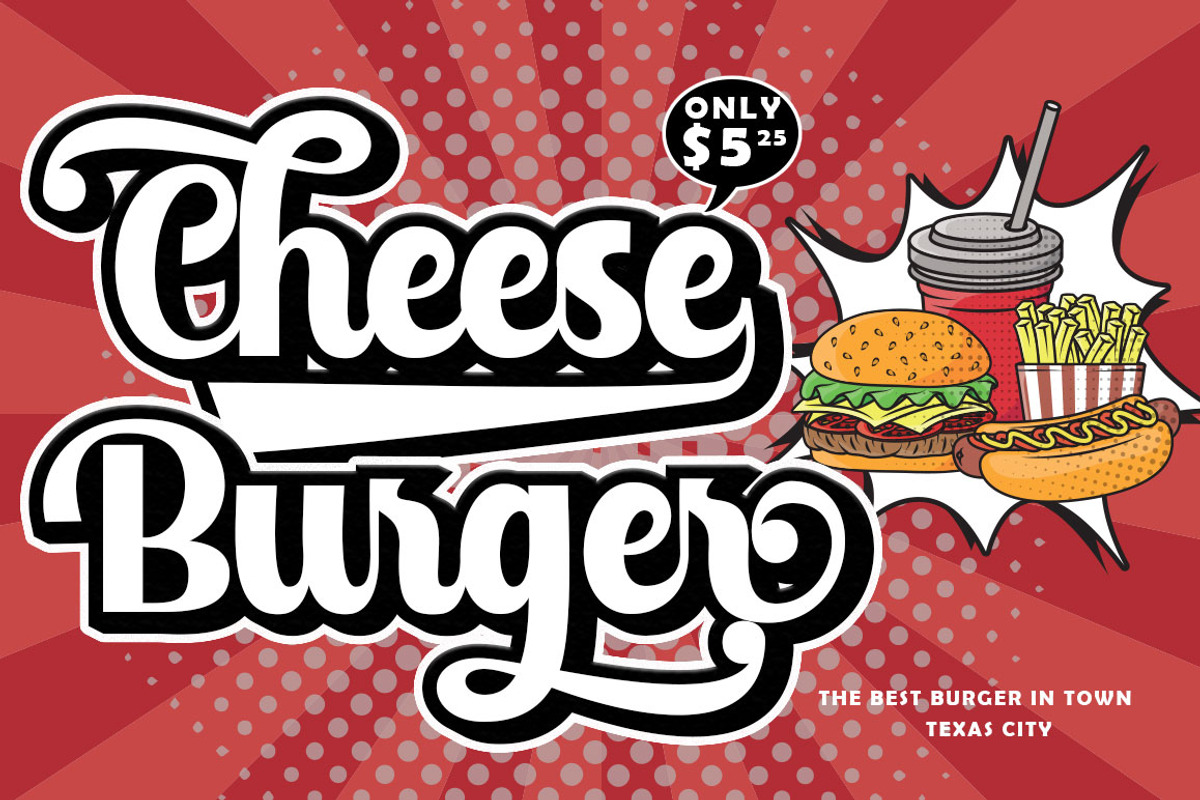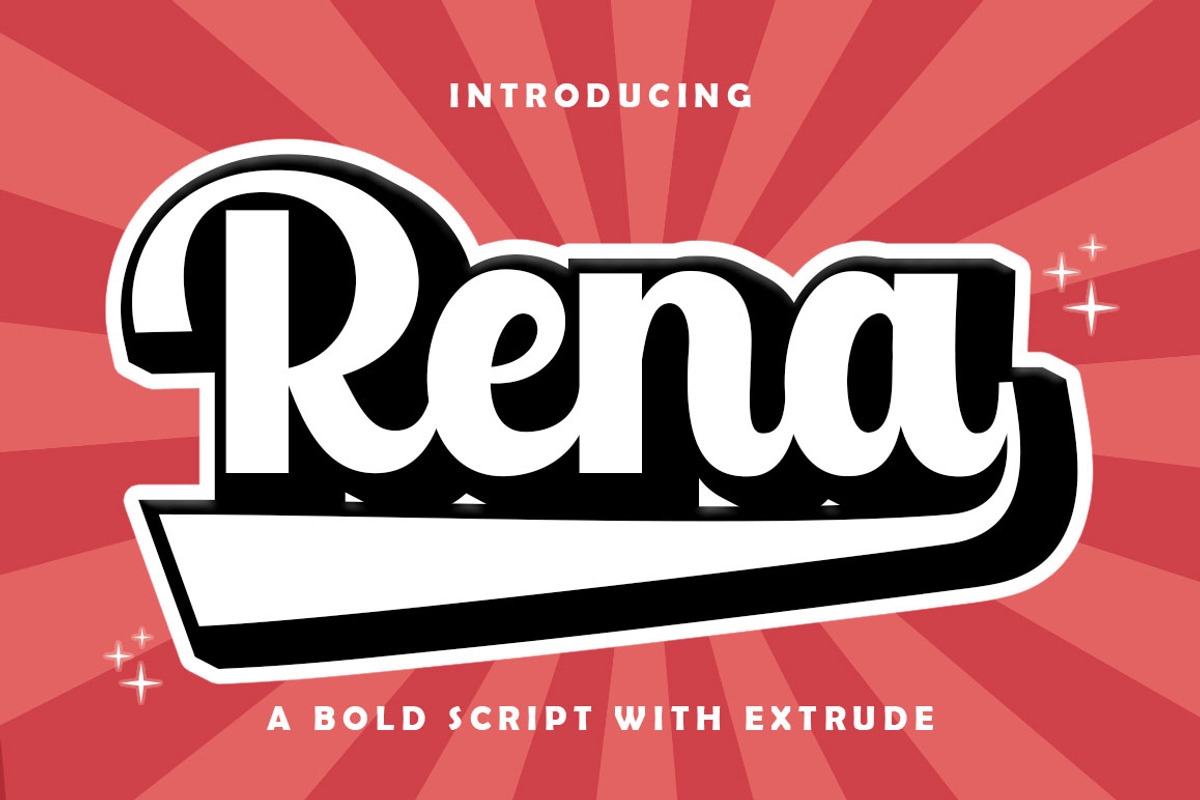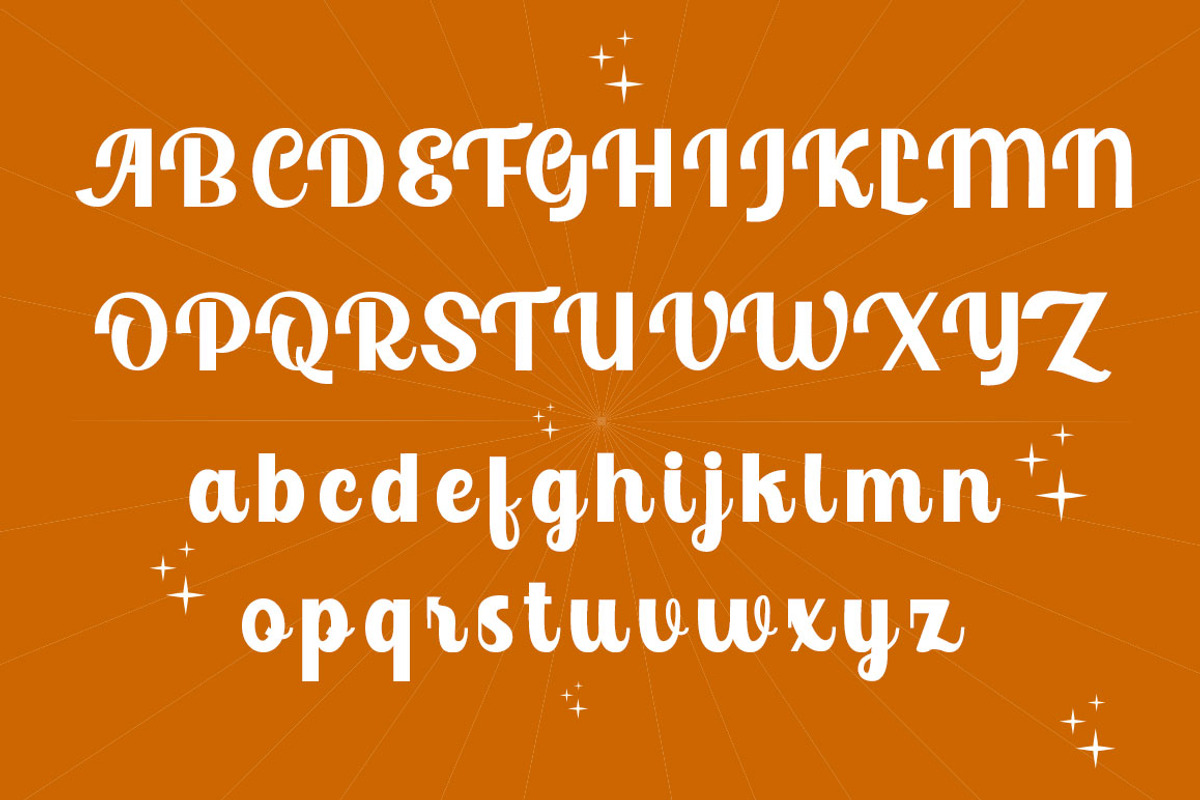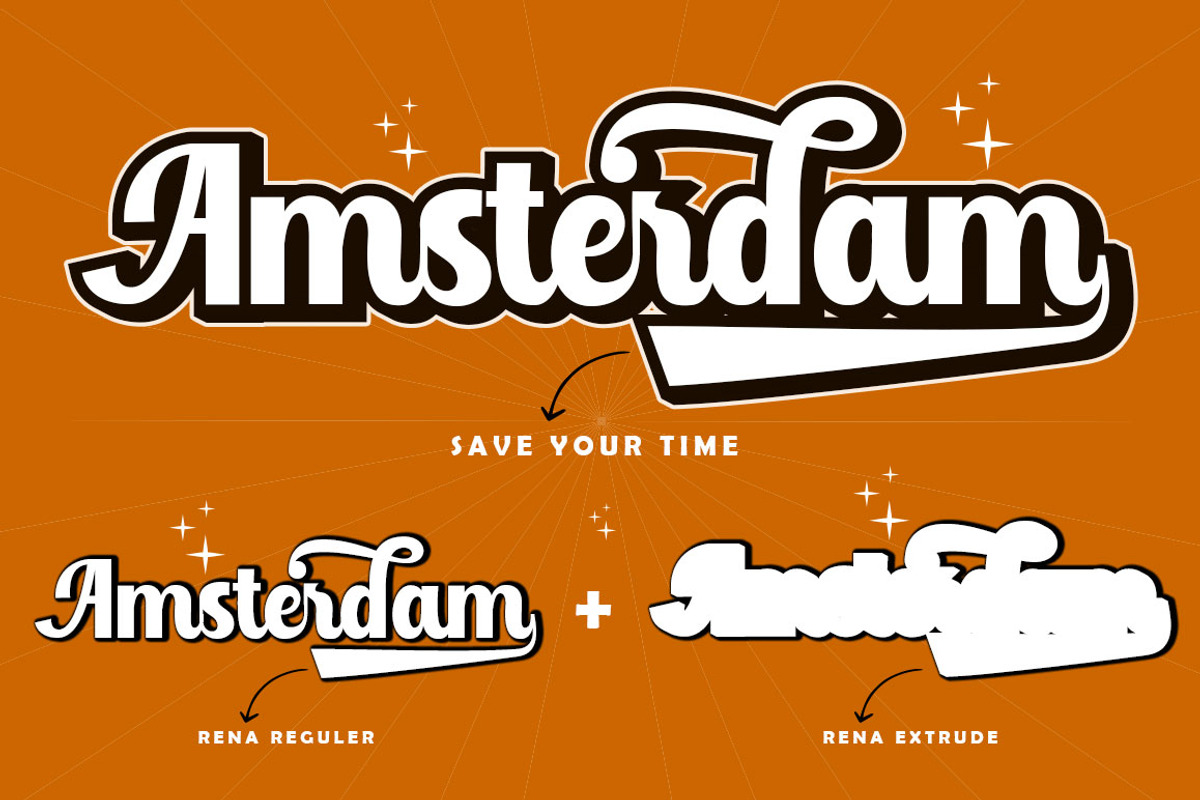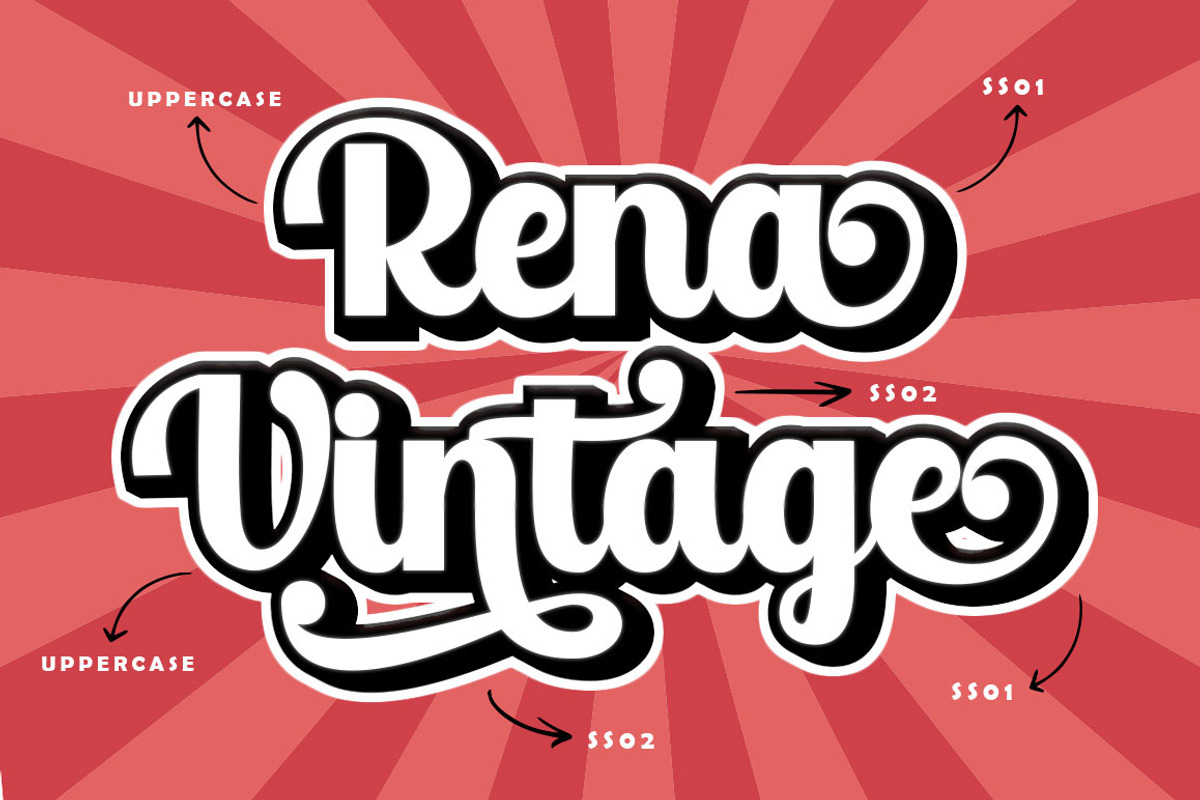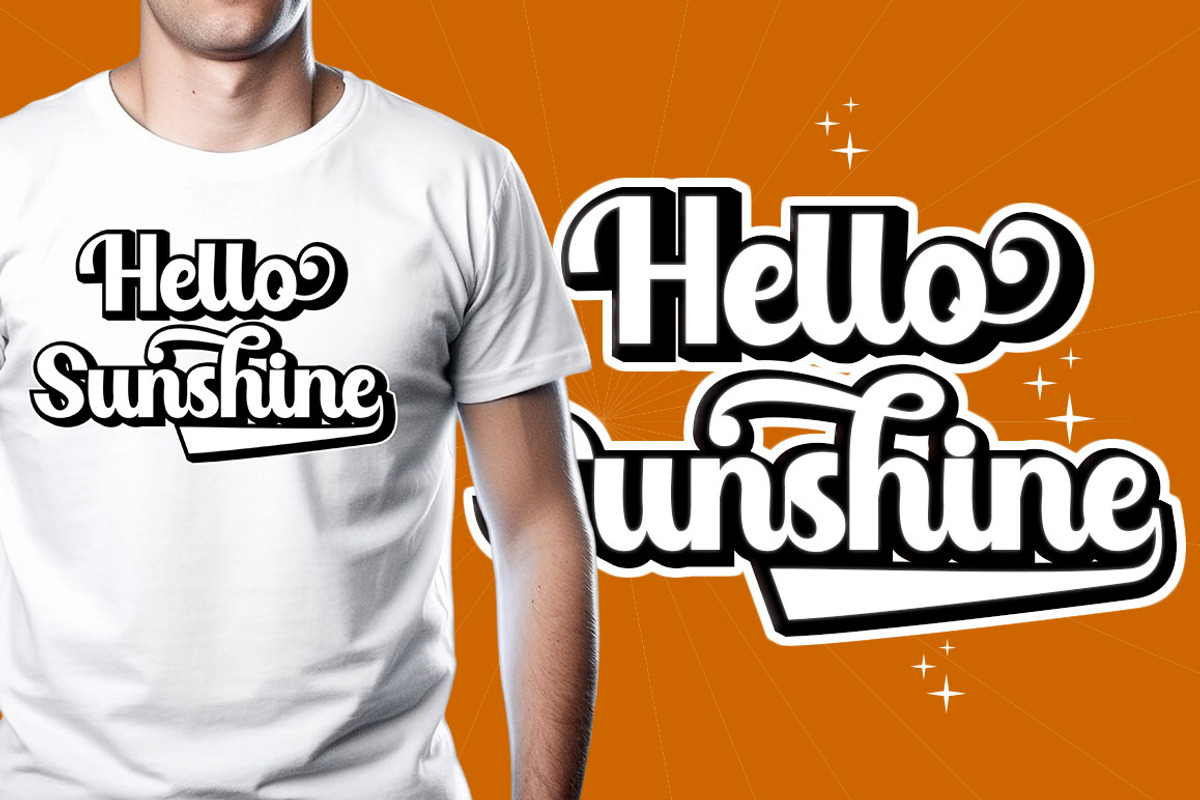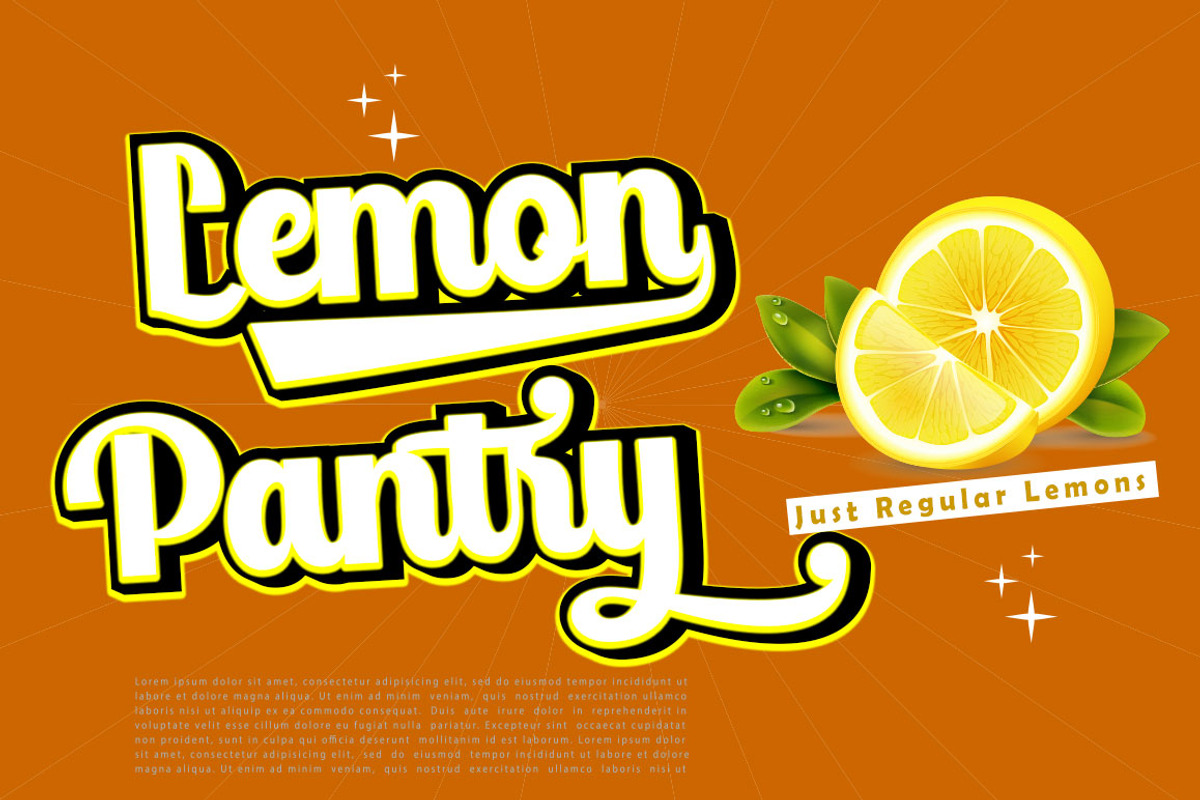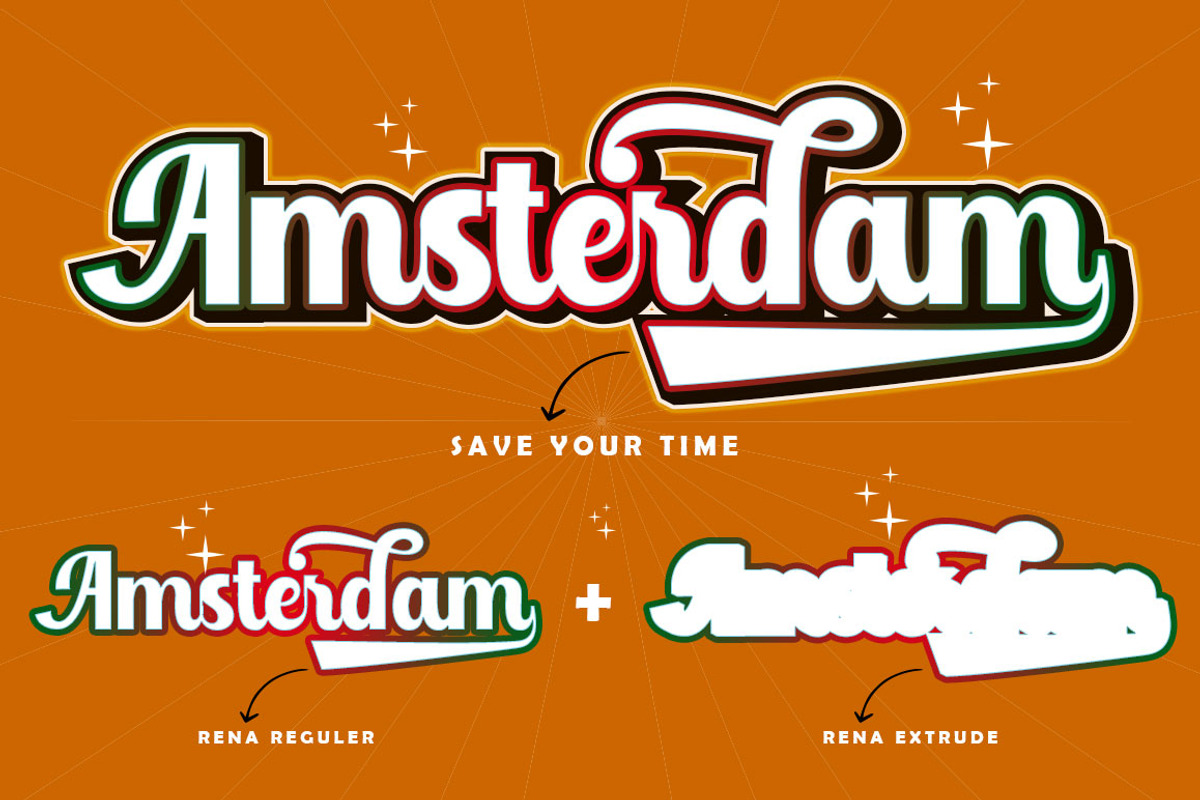
Rena - Retro Font
Rena Script Inspired by Retro style and mixed with Hand Lettering style. Rena Script has many alternatives and swash features such as alternative styles, style sets, ligatures, and swashes so you can mix and match as you like. Rena Script comes with open type features like alternative styles, a suite of advanced styles & features for logos, posters, badges, book covers, t-shirt designs, handwritten quotes, product packaging, headers, posters, merchandise, social media & greeting cards. You need a program that supports OpenType features such as Adobe Illustrator CS, Adobe Indesign & CorelDraw X6 -X7, Microsoft Word 2010 or a later version. Rena Script is encoded with Unicode PUA, which allows full access to all additional characters without having to have special design software. Mac users can use Font Book, and Windows to attach to your favorite text editor/app. If you need help or have questions, let me know or by email. I'm happy to help :) Thanks & Congratulations on the Design!